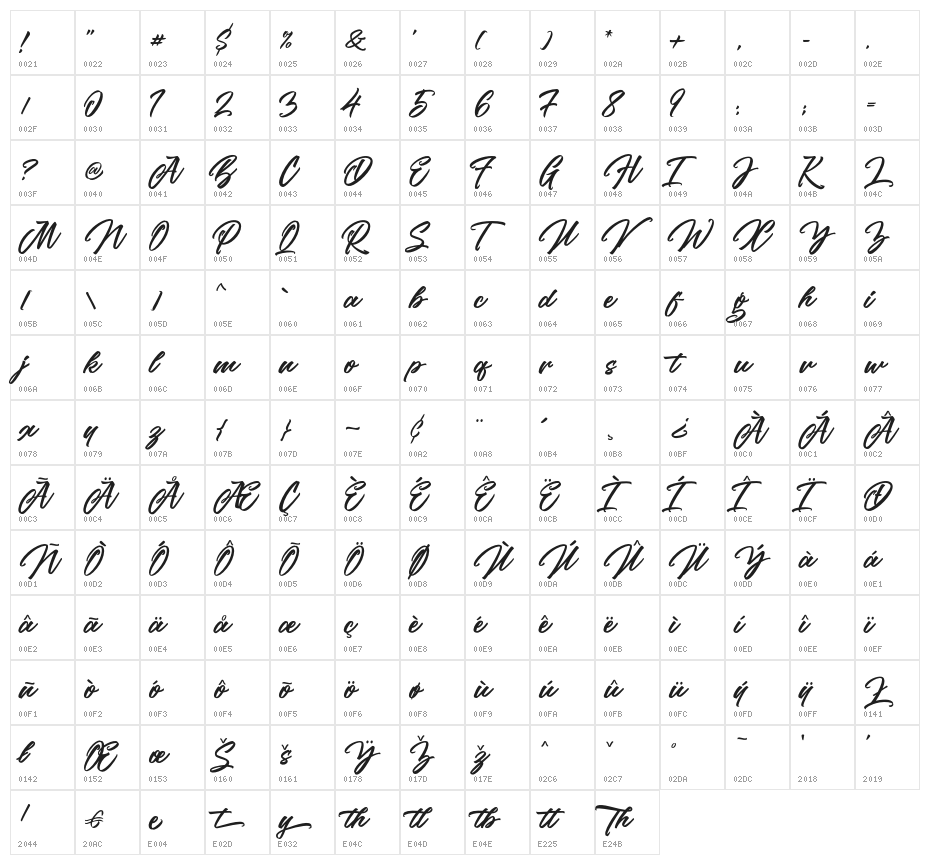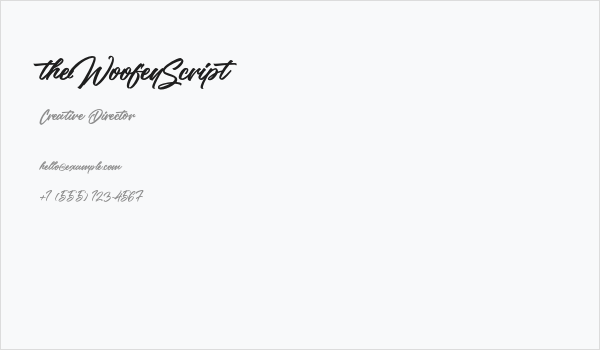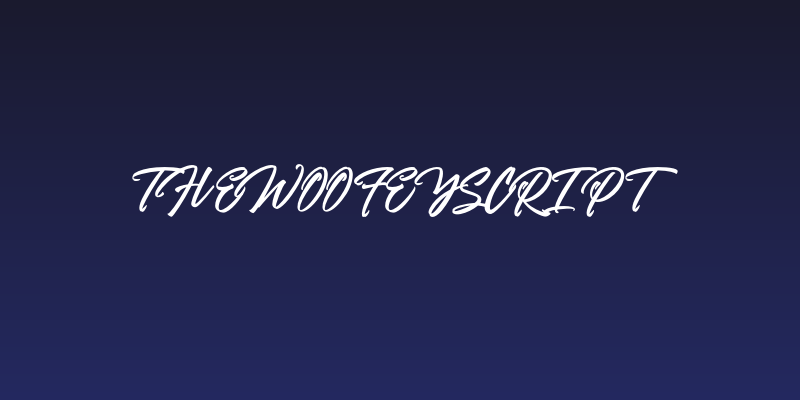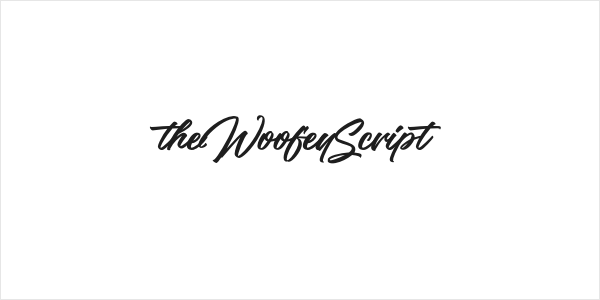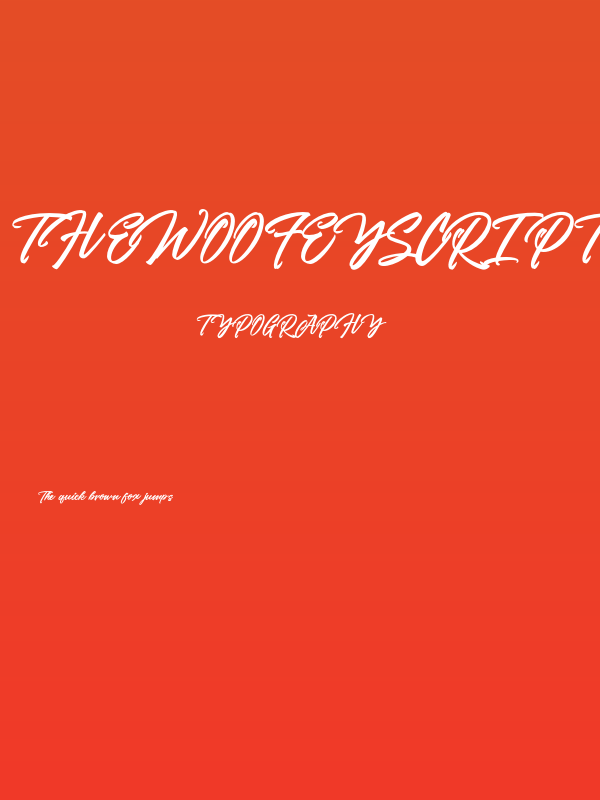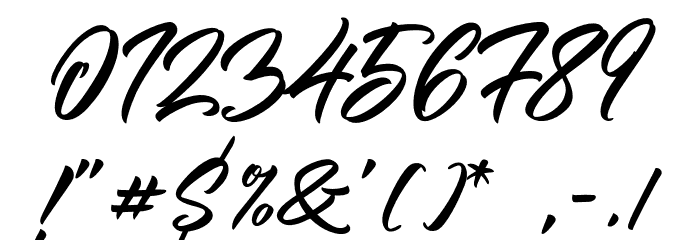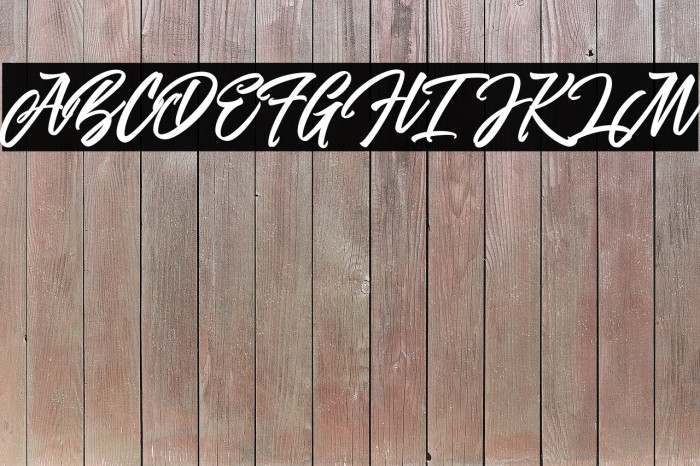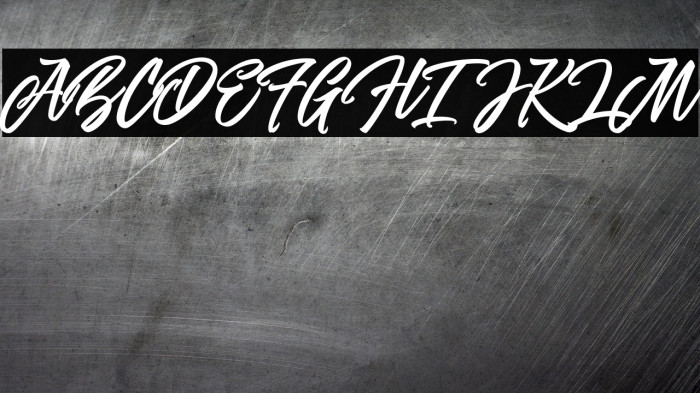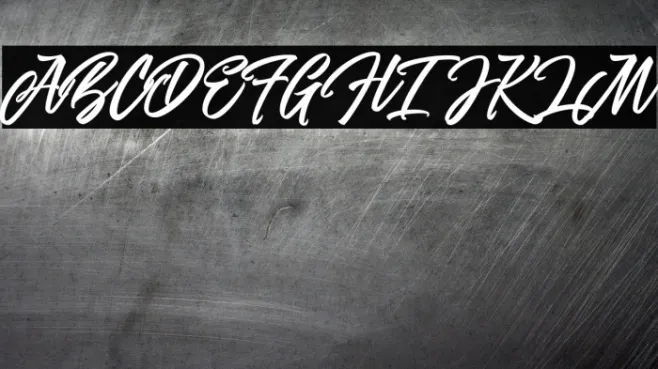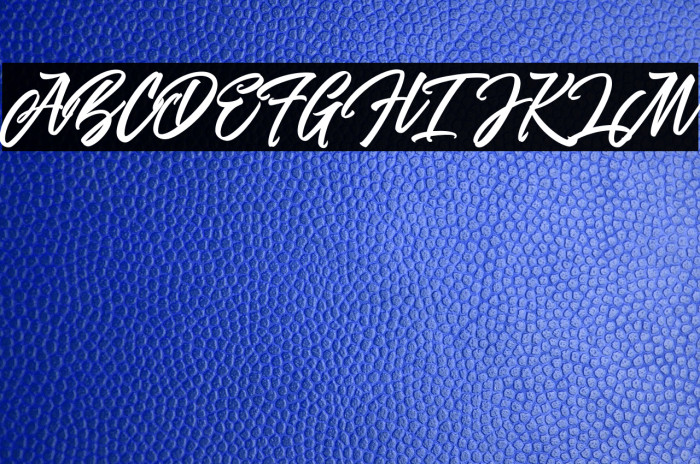
theWoofeyScript Font
theWoofeyScript Description
This script font features a flowing, cursive style with elegant, sweeping strokes that give it a dynamic and lively appearance. The characters are interconnected, creating a seamless and fluid look that is both sophisticated and approachable. The uppercase letters are bold and prominent, while the lowercase letters maintain a consistent flow, enhancing readability. The numerals and special characters complement the alphabet with similar stylistic elements, ensuring a cohesive overall design. This font is ideal for projects that require a personal touch, such as invitations, greeting cards, or branding materials.
| Proposed Projects | Ideal for invitations, greeting cards, branding, and personal projects. |